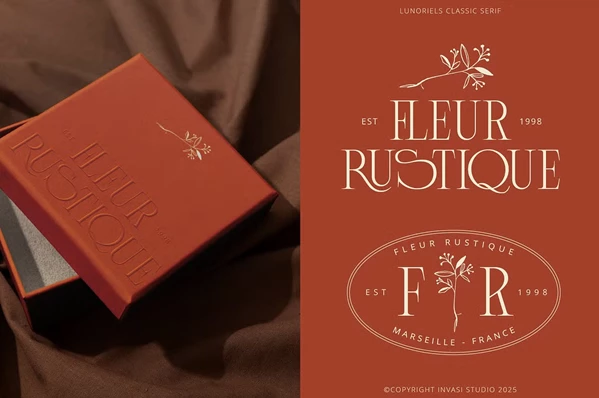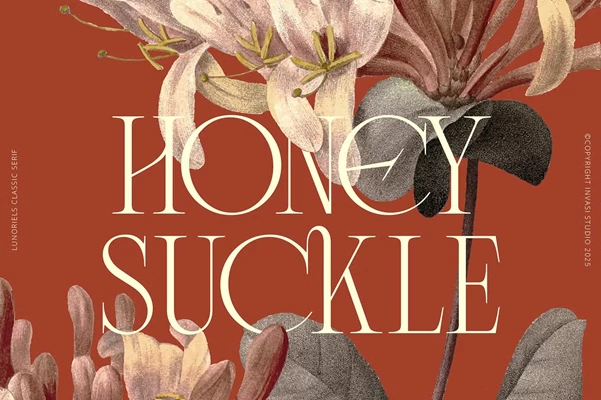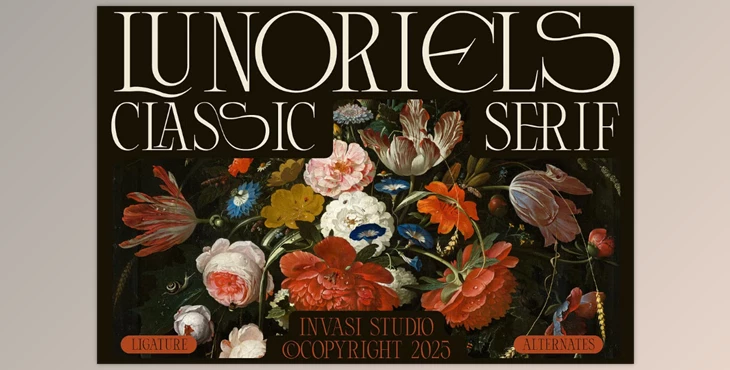
Lunoriels – Classic Serif Font:
Lunoriels is a modernized vintage serif that is both classic and condensed. Its design was inspired by his old-world editorial layouts and offers a graceful aesthetic for romantic and luxurious design projects. Tailored for brands in need of refined curves and high contrast strokes, preposterously artistic ligatures lunoriels offers branding, fashion packaging, wedding stationery, and cinematic titles. Additionally, extensive style options enable multilingual branding for sophisticated design projects.
Some great features of Lunoriels – Classic Serif Font:
- Typed in a gracious tight serif font.
- More than 50 distinct ligatures & decorative alternates.
- Uppercase letterforms.
- Numerals and punctuation are included as well.
- Supports more than 131 Latin-based languages.
Ideal for:
- Branding with a romantic theme.
- Fashion editorials.
- Packaging designer for prestige items.
- Stationery used in weddings.
- Titles for Movies.
- Created for use in print and digital media.